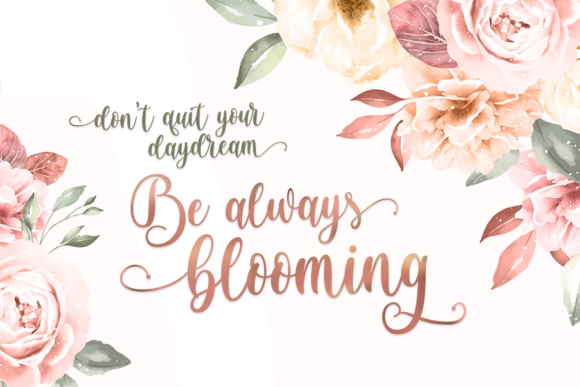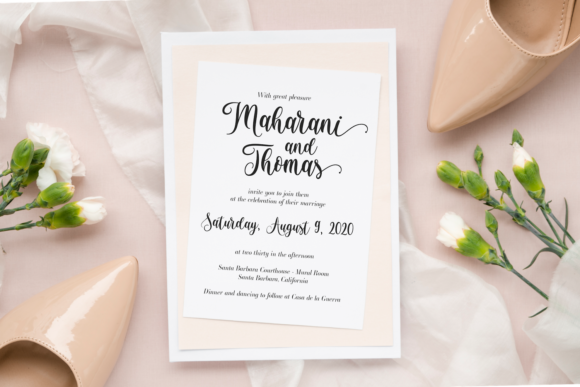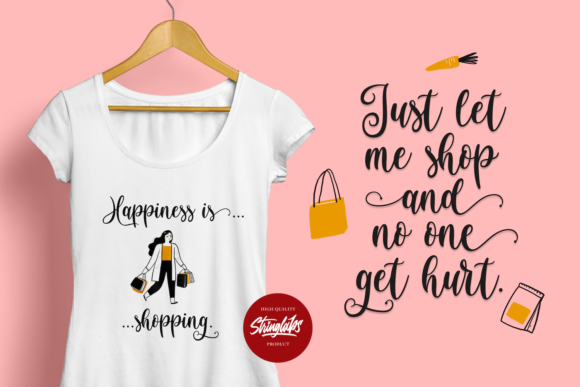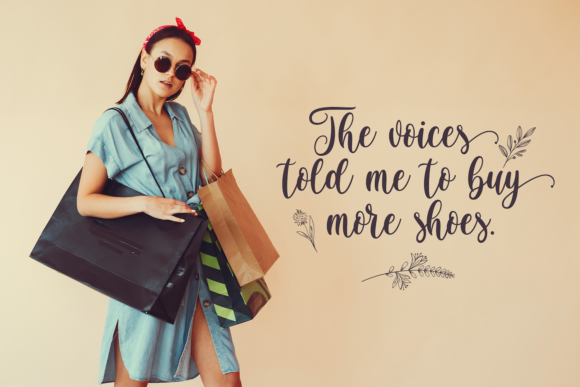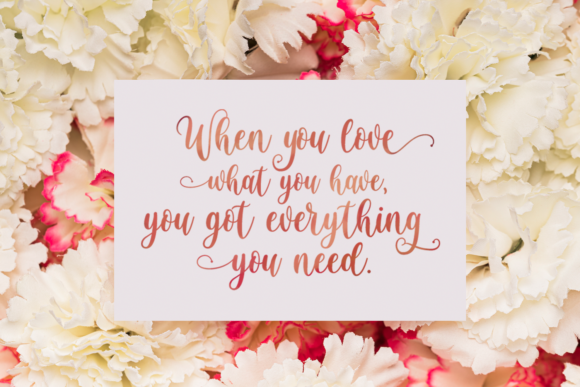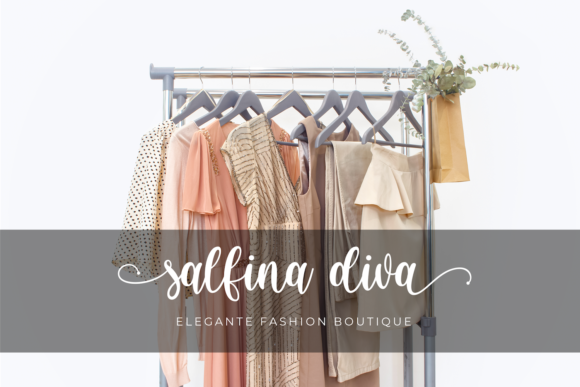
Brightside Font: Elevate Your Designs with a Beautiful Handwritten Script
In the world of typography, a beautiful handwritten font can make all the difference in elevating your designs from ordinary to extraordinary. If you’re a designer, crafter, or DIY enthusiast looking for a versatile and stunning script, look no further than Brightside Font. This gorgeous, modern handwritten font is perfect for a wide range of creative projects, from Instagram posts to calligraphy scripts, and is sure to turn your ideas into true works of art.
What Makes Brightside Font So Special?
Brightside Font is a modern script font that boasts a range of features that set it apart from other fonts. Its gorgeous swashes and ligatures make it incredibly versatile, allowing you to add a touch of elegance and sophistication to any design. Whether you’re creating social media graphics, invitations, or DIY projects, Brightside Font is the perfect choice.
One of the standout features of Brightside Font is its PUA (Private Use Area) encoding. This means that you can access all of the glyphs and swashes with ease, giving you complete creative control over your designs. With PUA encoding, you can easily insert swashes, ligatures, and other special characters into your text, allowing you to create truly unique and eye-catching designs.
Brightside Font is a dream come true for designers and crafters alike. Its beautiful, handwritten script is perfect for a wide range of creative projects, including:
- Social media graphics: Add a touch of elegance to your Instagram posts, Facebook graphics, and other social media designs with Brightside Font.
- Calligraphy scripts: Create stunning calligraphy scripts for DIY projects, such as wedding invitations, party decorations, and more.
- Invitations and announcements: Make your invitations and announcements stand out with Brightside Font’s gorgeous swashes and ligatures.
- Branding and packaging: Use Brightside Font to create a cohesive brand identity that exudes elegance and sophistication.
Why Choose Brightside Font?
With so many fonts on the market, why choose Brightside Font? Here are just a few reasons why Brightside Font stands out:
- Unique and eye-catching: Brightside Font’s gorgeous swashes and ligatures make it truly unique and eye-catching.
- Versatile: Brightside Font is perfect for a wide range of creative projects, from social media graphics to calligraphy scripts.
- Elegant and sophisticated: Brightside Font’s beautiful, handwritten script adds a touch of elegance and sophistication to any design.
- Easy to use: With PUA encoding, accessing glyphs and swashes is easy, even for those with limited design experience.
- Experiment with different swashes and ligatures: Don’t be afraid to try out different swashes and ligatures to see what works best for your design.
- Pair with other fonts: Brightside Font pairs beautifully with other fonts, so don’t be afraid to experiment with different combinations.
In conclusion, Brightside Font is a beautiful and modern handwritten font that is perfect for designers, crafters, and DIY enthusiasts alike. With its gorgeous swashes and ligatures, PUA encoding, and versatility, Brightside Font is sure to elevate your designs and turn your creative ideas into true works of art.